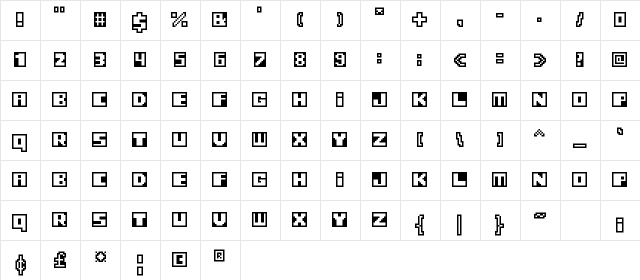
PixelCards Medium
Design Context for PixelCards Typeface
PixelCards celebrates the constraints of early digital type, turning pixel geometry into a distinctive and immediately recognisable style.
Well-suited to indie game interfaces, retro computing aesthetics, and pixel art-adjacent design work.
Pro Tip: Use PixelCards at sizes that align with its pixel grid for the sharpest rendering — scaling to non-integer multiples can introduce unwanted blur.